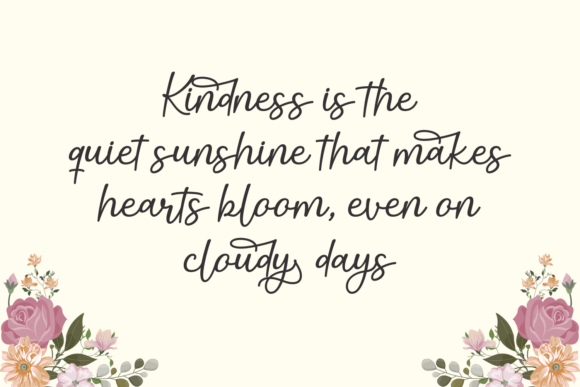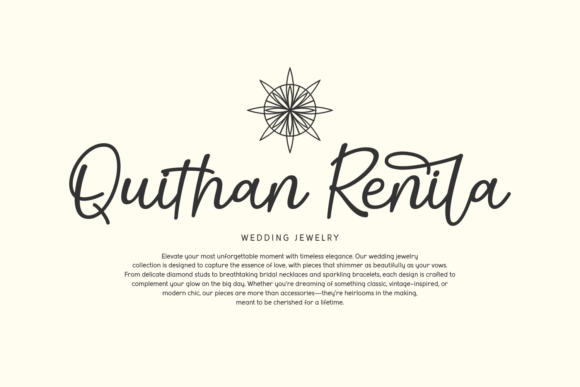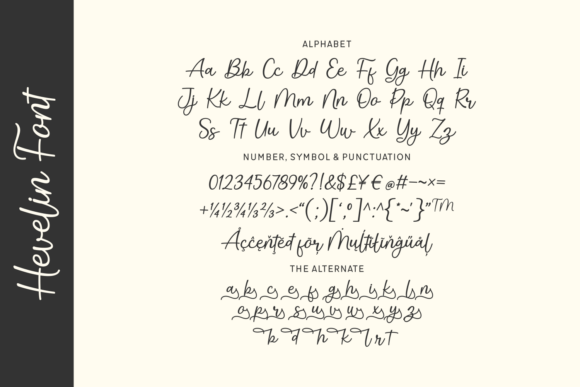
Introduction to Hevelin Font
Hevelin is a charming and modern script typeface with a graceful flow and subtle swashes that bring elegance to any design.
Perfect for wedding invitations, product packaging, feminine branding, or floral-themed graphics, Hevelinโs hand-lettered aesthetic and soft curves add a touch of romance and warmth Its balanced structure and clean lines make it both beautiful and legible.
Key Features of Hevelin Font
Why Choose Hevelin Font?